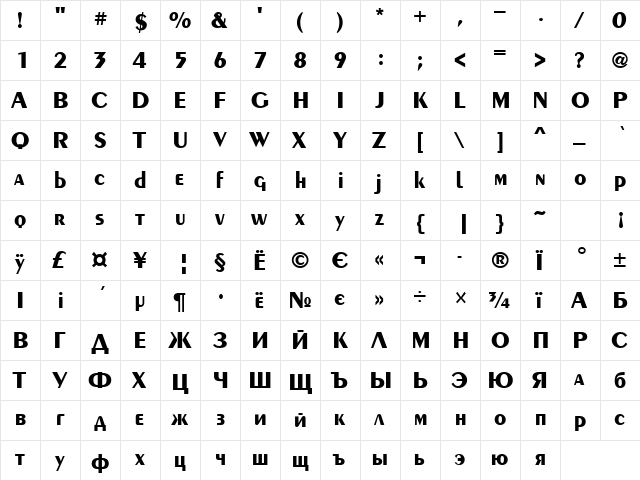
Penta Bold
Design Context for Penta Typeface
Penta is a composed and adaptable typeface that performs quietly and consistently across a wide range of design contexts. The heavy weight commands attention and anchors typographic hierarchies.